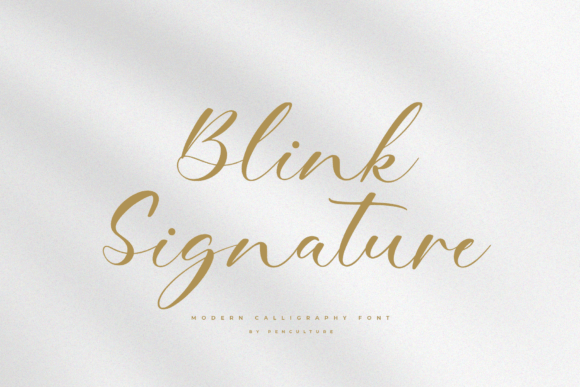
The Elegance of Blink Signature: A Comprehensive Guide to This Stunning Calligraphy Script Font
Have you ever been in the midst of working on a design project, and suddenly, you’re struck by the daunting task of finding the perfect font? I recall a particularly stressful experience while designing a wedding invitation for a close friend. The invitation needed to exude elegance, sophistication, and a personal touch. That’s when I stumbled upon Blink Signature, an elegant calligraphy script font that instantly elevated my design to the next level.
Blink Signature brings a touch of sophistication and personal flair to your designs, making it perfectly suited for a variety of applications, from wedding invitations and greeting cards to logos and branding materials. In this article, we’ll dive into the world of Blink Signature, exploring its features, uses, and what makes it a standout choice for designers, crafters, and creative hobbyists alike.
An Honest Review of Blink Signature
What I Love About Blink Signature ✨
• 💫 Elegant and sophisticated design that’s perfect for high-end projects
• 🎨 Versatile and adaptable to various design styles and applications
• 💬 Beautifully crafted with attention to detail, making it a joy to work with
• ⚠️ Limited availability of certain special characters or glyphs
• 🤔 May require some manual adjustments for optimal kerning and spacing
The Backstory of Blink Signature
Blink Signature was designed by a team of typographers who aimed to create a font that would bring a touch of elegance and sophistication to any design project. Inspired by traditional calligraphy, Blink Signature features beautiful, flowing lines and intricate details that make it perfect for high-end applications.
Font Name Blink Signature Font
Author Pen Culture
Q: What is Blink Signature, and what is it used for?
A: Blink Signature is an elegant calligraphy script font designed for a variety of applications, including wedding invitations, greeting cards, logos, and branding materials.
Q: Is Blink Signature easy to read?
A: Yes, Blink Signature is highly legible, even at smaller font sizes, making it perfect for body text and headlines.
Q: Does Blink Signature support OpenType features?
A: Yes, Blink Signature supports OpenType features, including stylistic alternates, ligatures, and glyphs, which can be accessed in compatible design software.